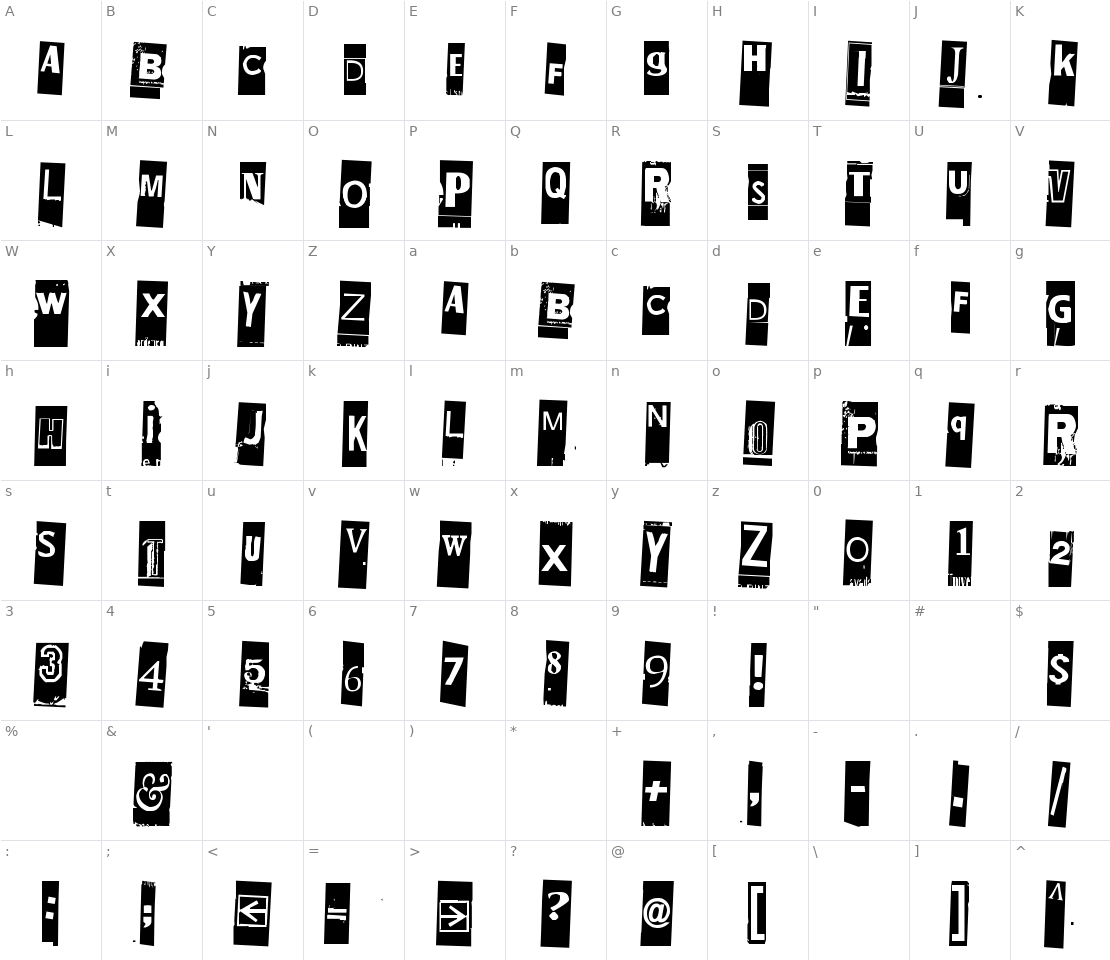
Ellet Niin
Ellet Niin is a bold, rough-edged display face from junkohanhero with letterforms that look cut from different sources and pasted together, giving it that classic ransom note or punk collage aesthetic. The distressed, uneven characters feel deliberately chaotic, like each one was torn from a magazine and slapped down in a hurry. Built for headlines, posters, and experimental layouts where you want raw, confrontational energy over polish.